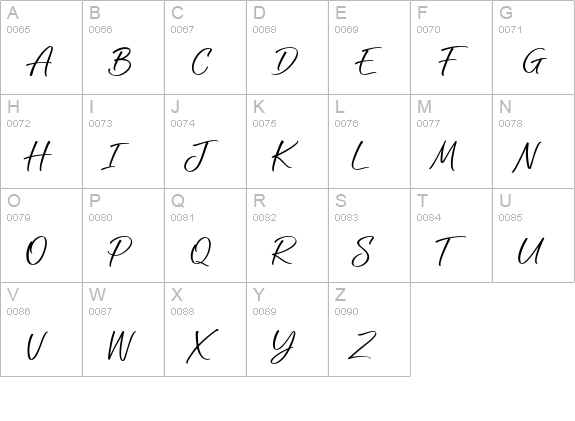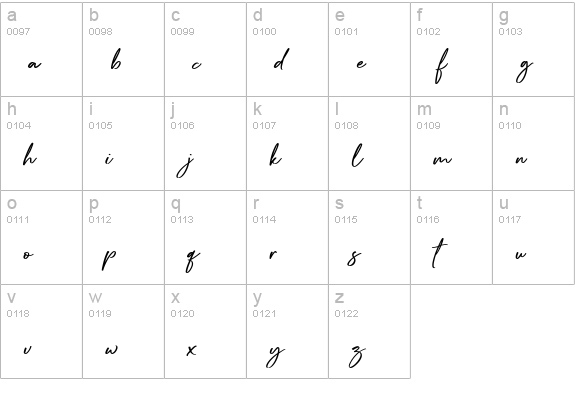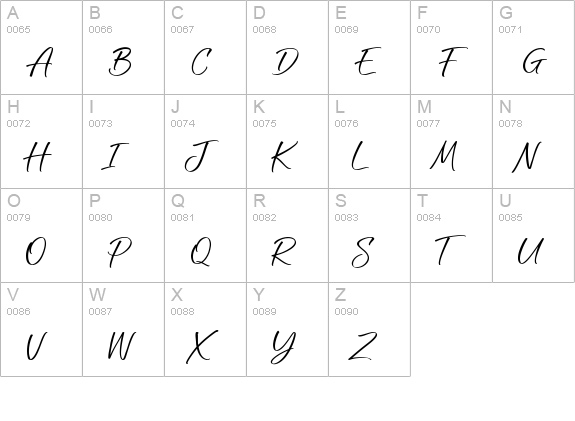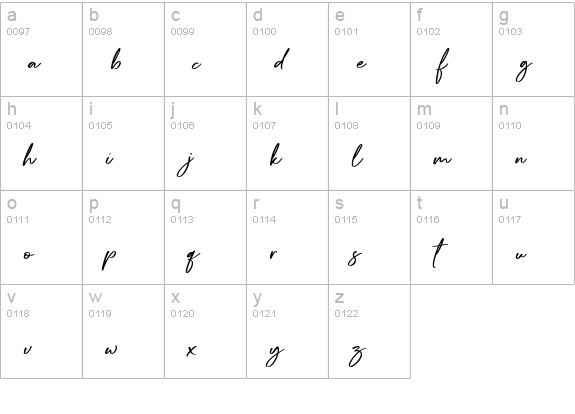
Amabillis Handwritten Font is a charming and elegant typeface that exudes a sense of creativity and sophistication. Its flowing lines and delicate curves give a personal touch to any design project, adding a touch of warmth and personality. Whether you're working on invitations, greeting cards, logos, or branding materials, Amabillis Handwritten Font is sure to make your text stand out.